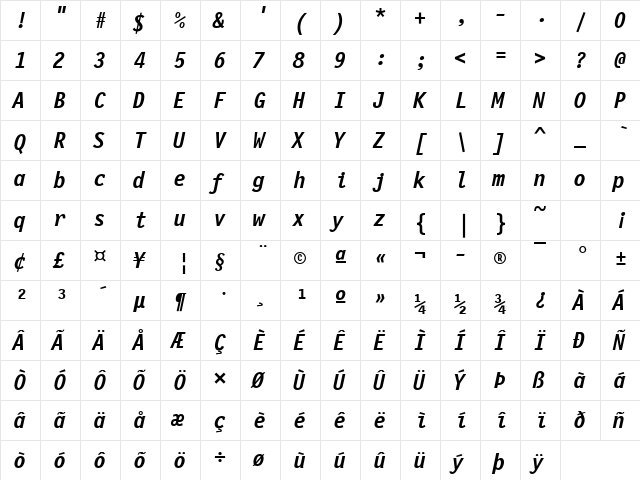
Financial Bold Italic
Design Context for Financial Typeface
Financial offers clean, dependable letterforms without strong stylistic allegiance, making it a practical choice for designers who need flexibility. The slanted form adds forward momentum and visual energy. Its bold stroke weight gives it real presence on the page.
Pro Tip: Try Financial for annotation and caption copy alongside an upright companion — the contrast in angle creates a dynamic but ordered typographic system.